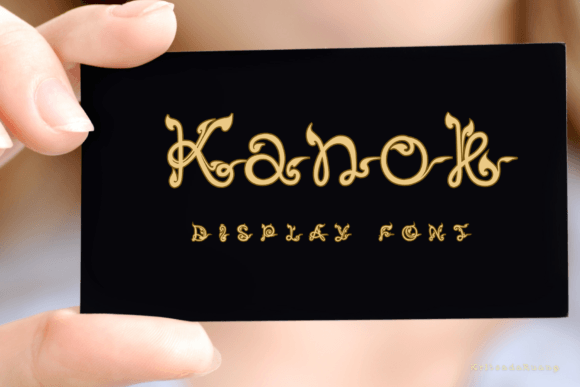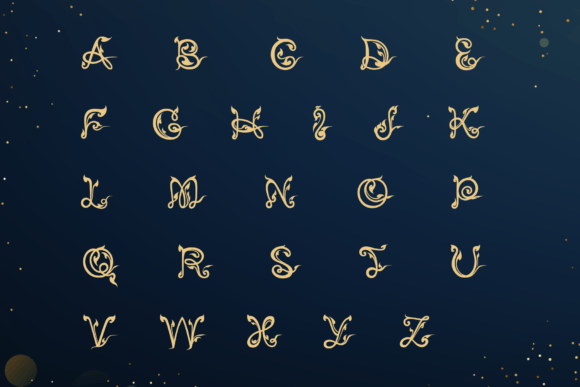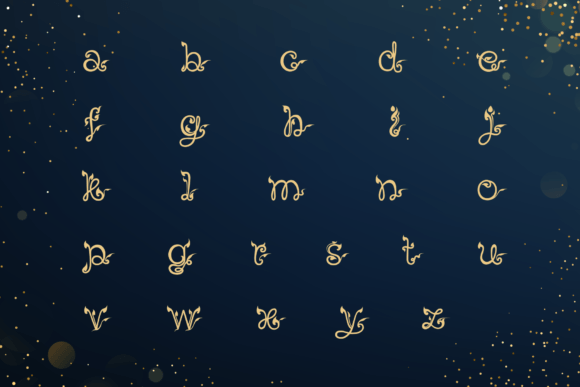
Introduction to Kanok Font
As a designer, there’s nothing quite like the thrill of discovering a new design resource that perfectly captures the essence of a project. It’s that moment when all the elements come together, and you know you’re on the right track. For me, that moment came when I stumbled upon the stunning Kanok Font. Inspired by the intricate patterns of Thai art, this elegant and luxurious font is the perfect addition to any creative project that demands an Asian feel.
So, let’s dive into the world of Kanok Font and explore its features, uses, and why it’s a must-have in your design toolkit.
Key Features of Kanok Font
- High-quality font with a unique and elegant design, perfect for creative projects.
- Includes 4 different font styles: regular, bold, italic, and bold italic, providing a wide range of design options.
- Supports various languages, including English, making it a versatile design resource for global projects.
- Features a high-resolution design, suitable for print and digital applications, with a minimum recommended size of 300 DPI.
Honest Review: Kanok Font
I recently had the chance to work with the Kanok Font, and I must say it’s been a pleasant experience. This font is perfect for any creative project that requires a high-quality, elegant touch.
- ✨ High-quality design that looks great on both digital and print materials.
- ⚠️ Limited character set, which might not be suitable for longer texts or complex content.
- ⚠️ Not ideal for bold or heavy typography, as it can become overwhelming.
Overall, I’m impressed with the Kanok Font. It’s a solid choice for designers who need a stylish, high-quality font for their creative project. While it may have some limitations, it’s a great resource to have in your design toolkit.
Common Use Cases for Kanok Font
The Kanok Font is ideal for a variety of creative projects, including logos, business cards, and social media graphics. Its high-quality design and transparent background make it a valuable resource for designers and non-designers alike.